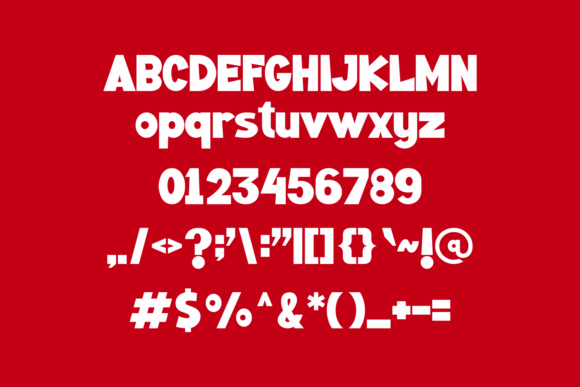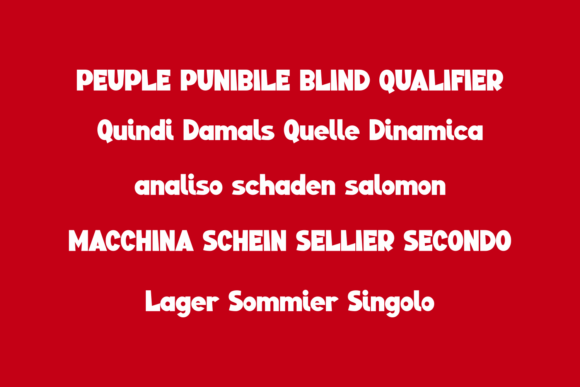
Introduction to Relisto Font
Add some instant pizzazz to your creative projects with this unique, sparkly font.
Relistoโs glyphs are strong and bold while still maintaining a subtle playful vibe, making it the perfect typeface for a wide spectrum of projects .
Key Features of Relisto Font
Why Choose Relisto Font?